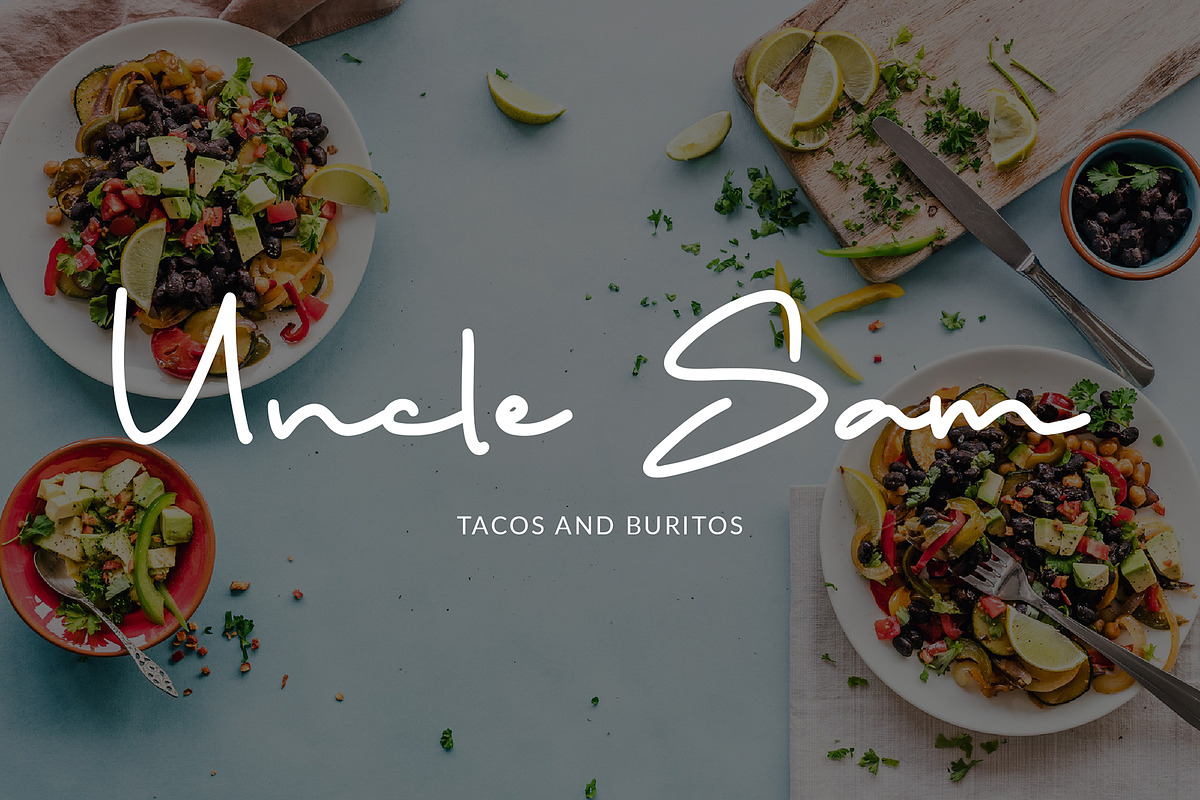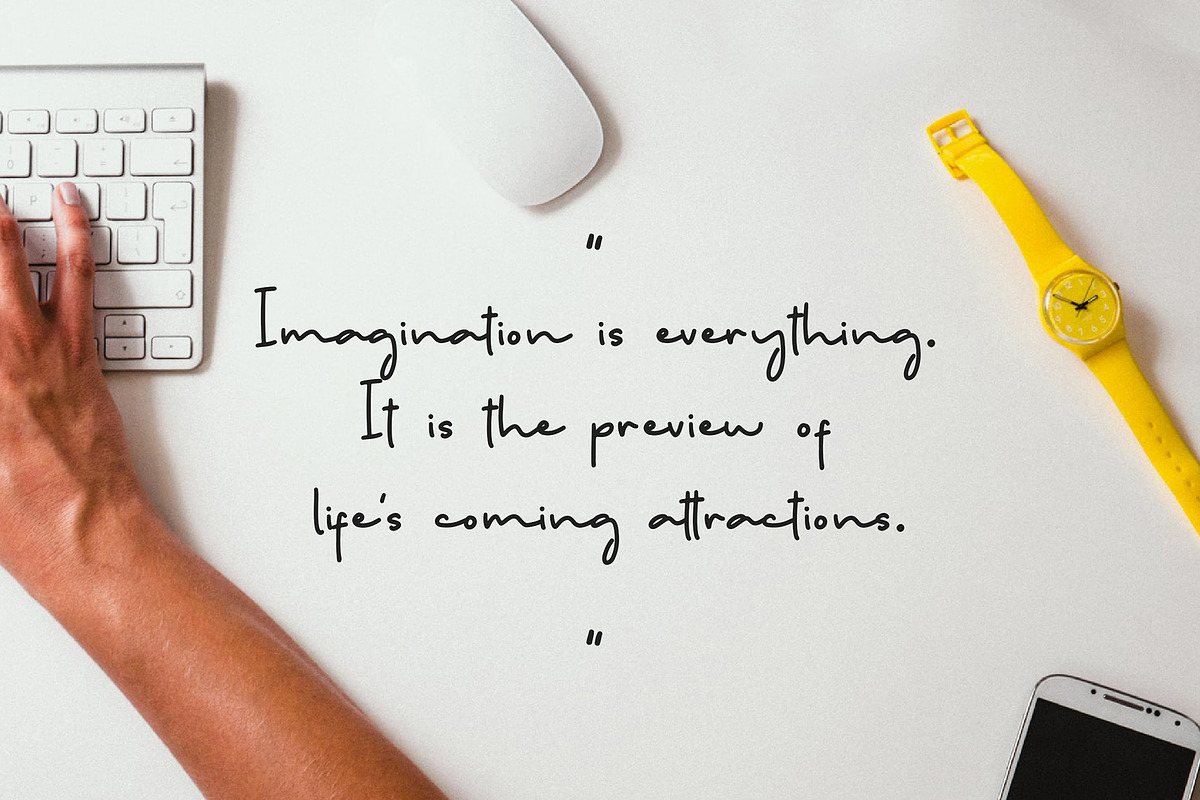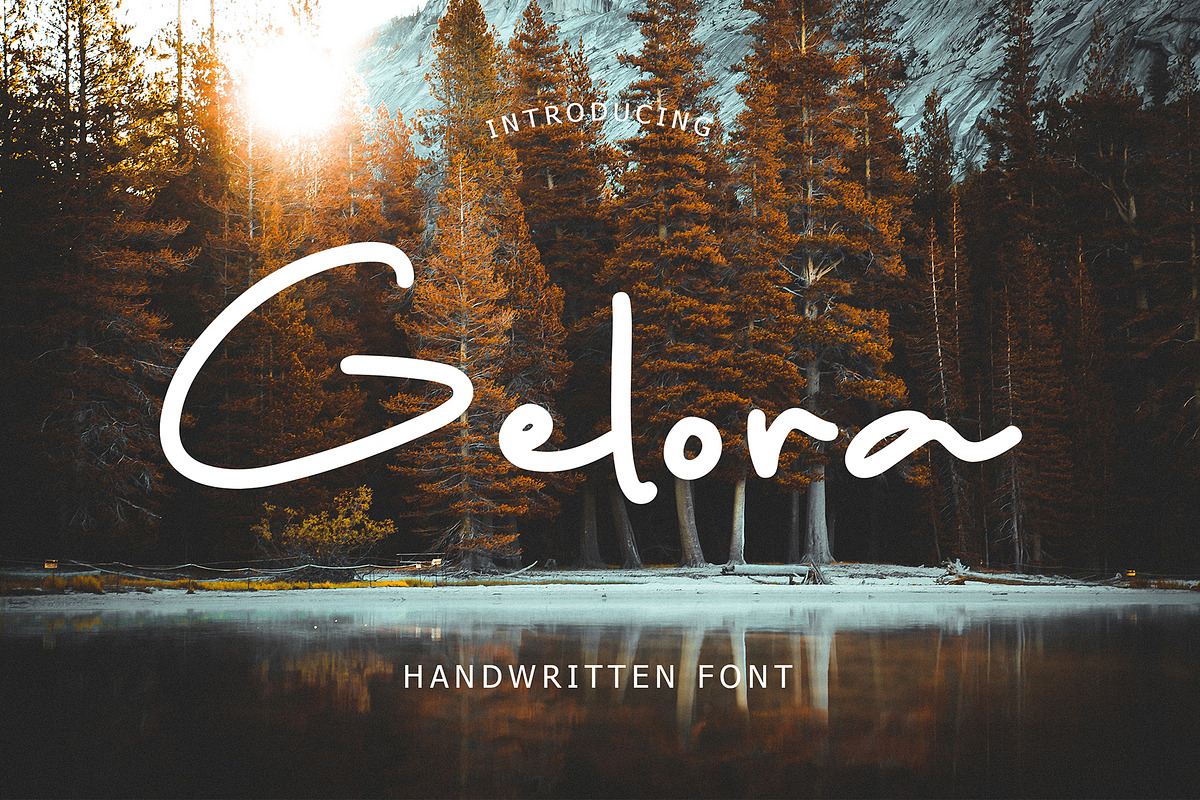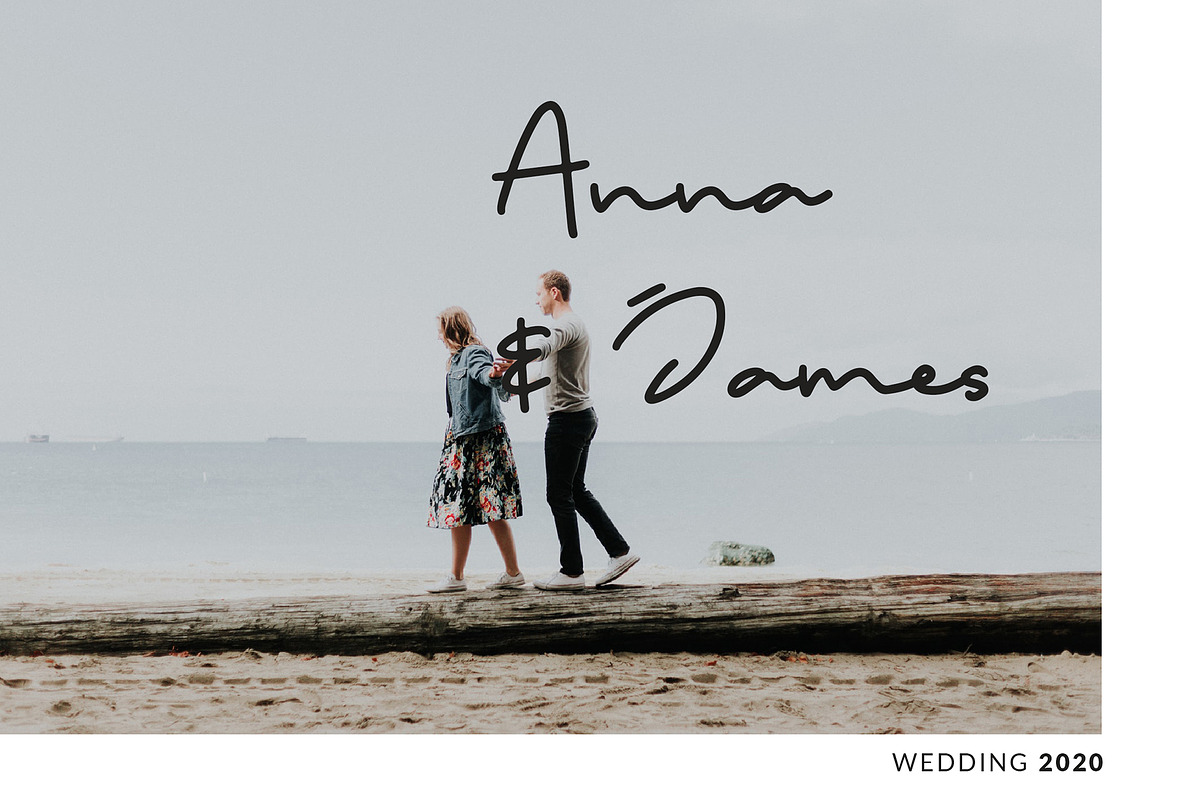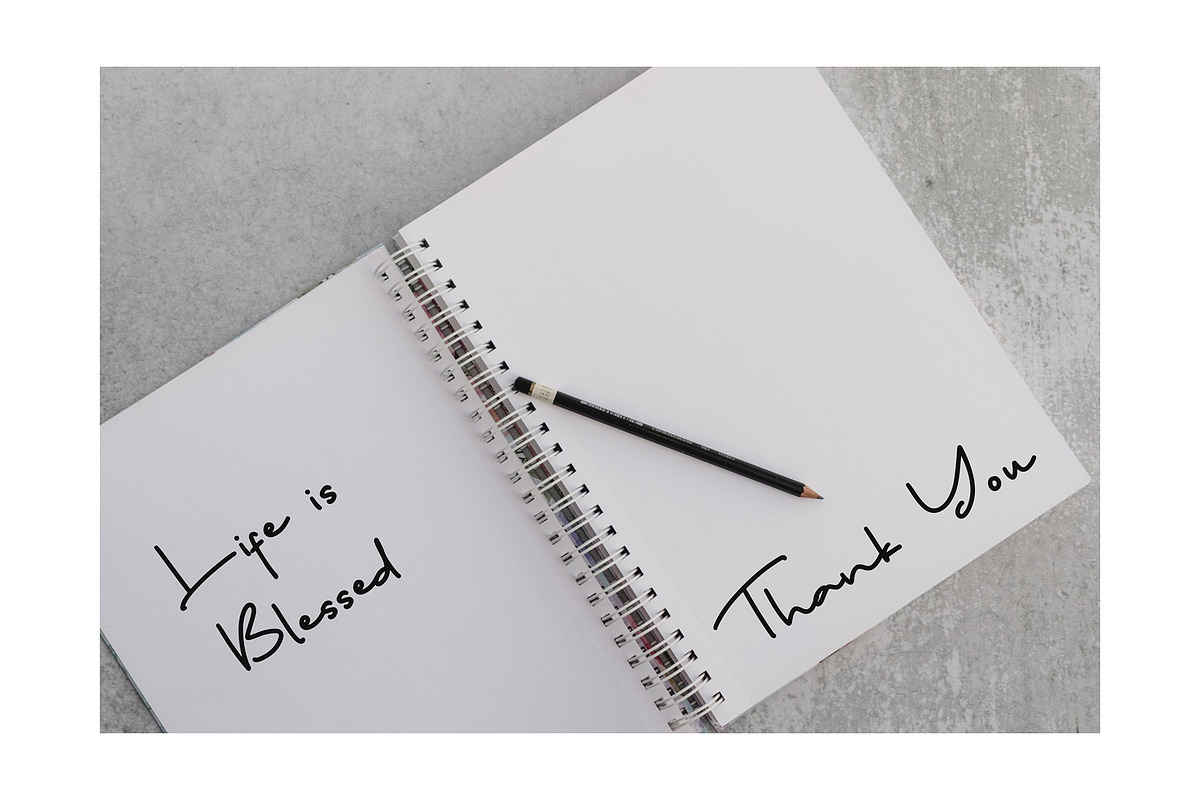
Gelora Handwritten Font
Gelora is handwritten font with monoline style. This font perfect for branding projects, logo, tshirt designs, social media posts, advertisements, product packaging, product designs, label, watermark, invitation, stationery and any projects
Gelora Handwritten Font by Formatika Studio fits naturally into Branding, posters, packaging, typography.